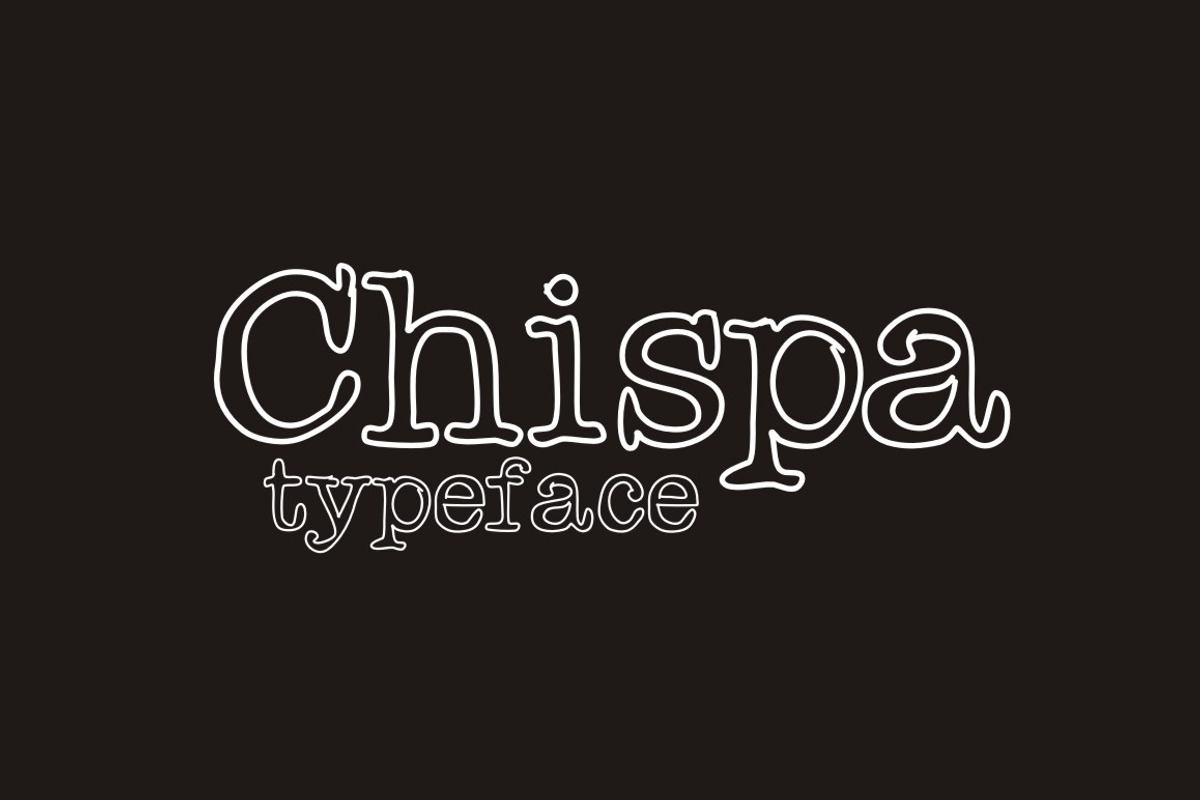
Chispa Font Free Download is a bold and energetic display typeface bursting with personality and flair. Designed to ignite creativity, this font is perfect for eye-catching headlines, branding, festival posters, product packaging, and anything that calls for a vibrant, attention-grabbing look.
Chispa Font Free Download features playful curves, strong geometry, and a spark of Latin-inspired rhythm that brings movement to every letter. Whether you're designing for music events, streetwear collections, or food & drink branding, this font adds that “pop” your project needs.
Its dynamic structure makes it ideal for modern, colorful layouts and bold compositions. Pair it with bright hues, funky graphics, or even layered illustrations for a truly electric result.
Let your message shine bright with Chispa—a font that doesn’t just make an impression, it sparks one.